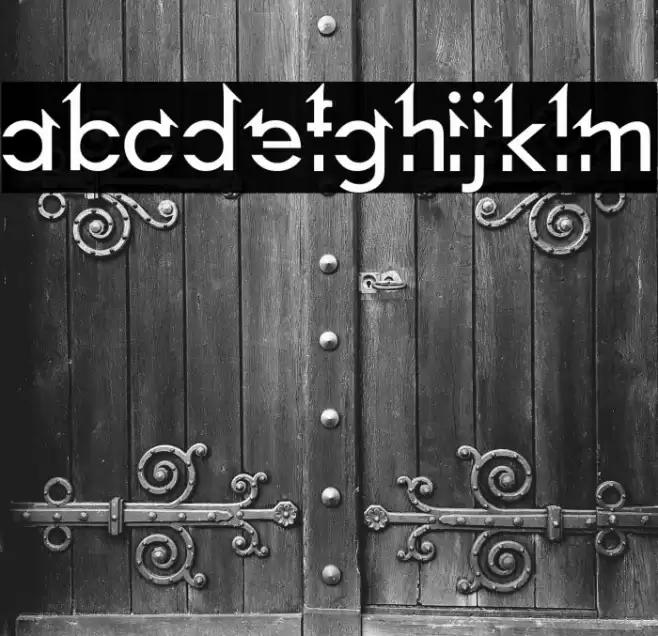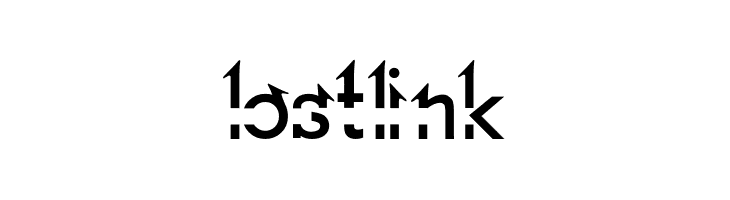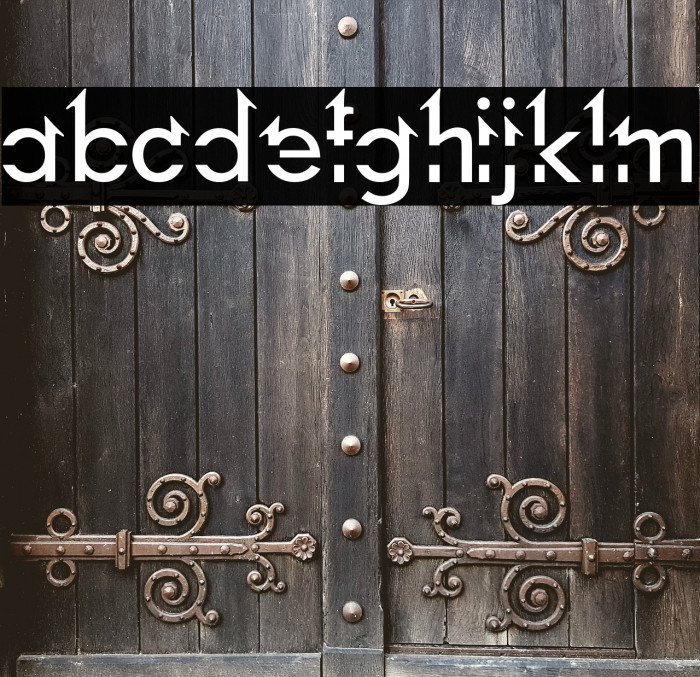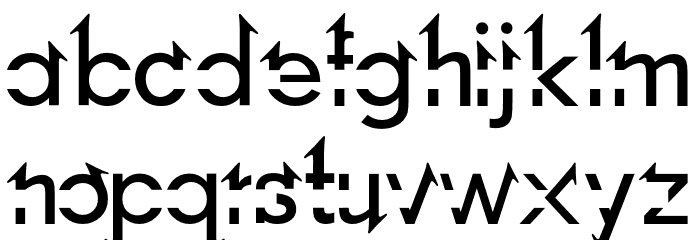
Lost Link Font
Lost Link Description
This font features a unique and modern design with angular, geometric shapes that create a futuristic and edgy appearance. The characters are constructed with sharp angles and bold lines, giving them a distinctive and striking look. The uppercase and lowercase letters maintain a consistent style, with some characters incorporating arrow-like elements that add to the dynamic feel. The numbers and special characters follow the same design principles, ensuring uniformity across the font. This font is highly stylized, making it ideal for projects that require a bold and unconventional aesthetic.
A modern, angular font with geometric shapes and bold lines from Uncategorized fonts.